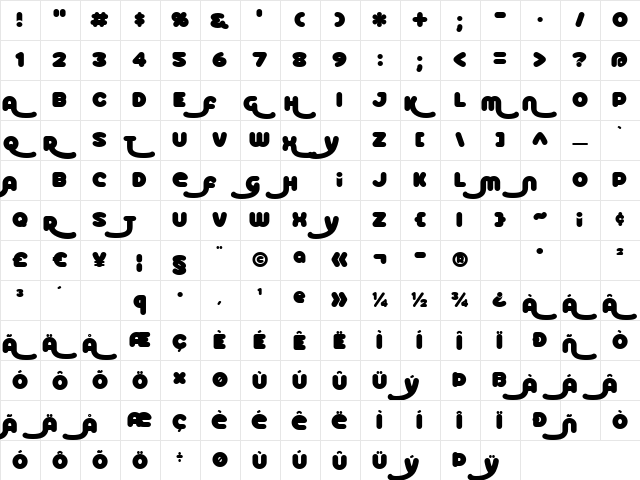
Roller Baby BV Alt Regular
Design Context for Roller Baby BV Alt Typeface
Roller Baby BV Alt is a composed and adaptable typeface that performs quietly and consistently across a wide range of design contexts.